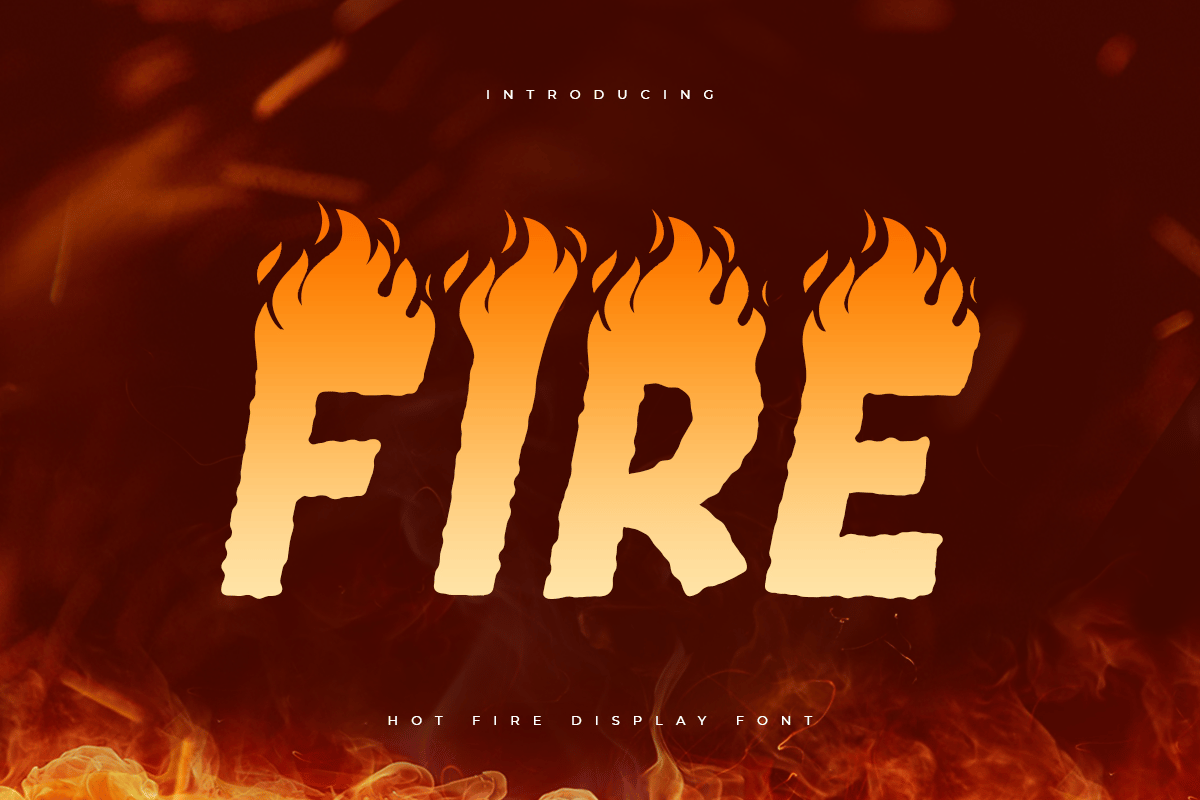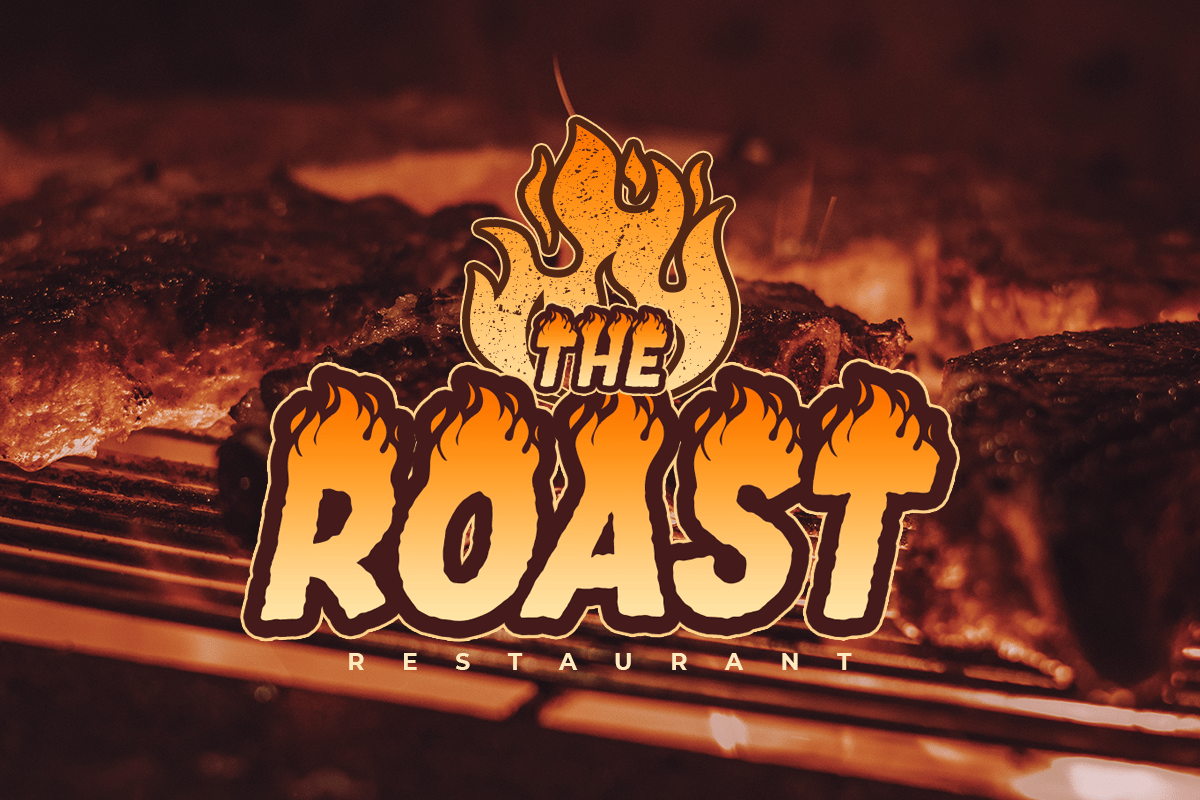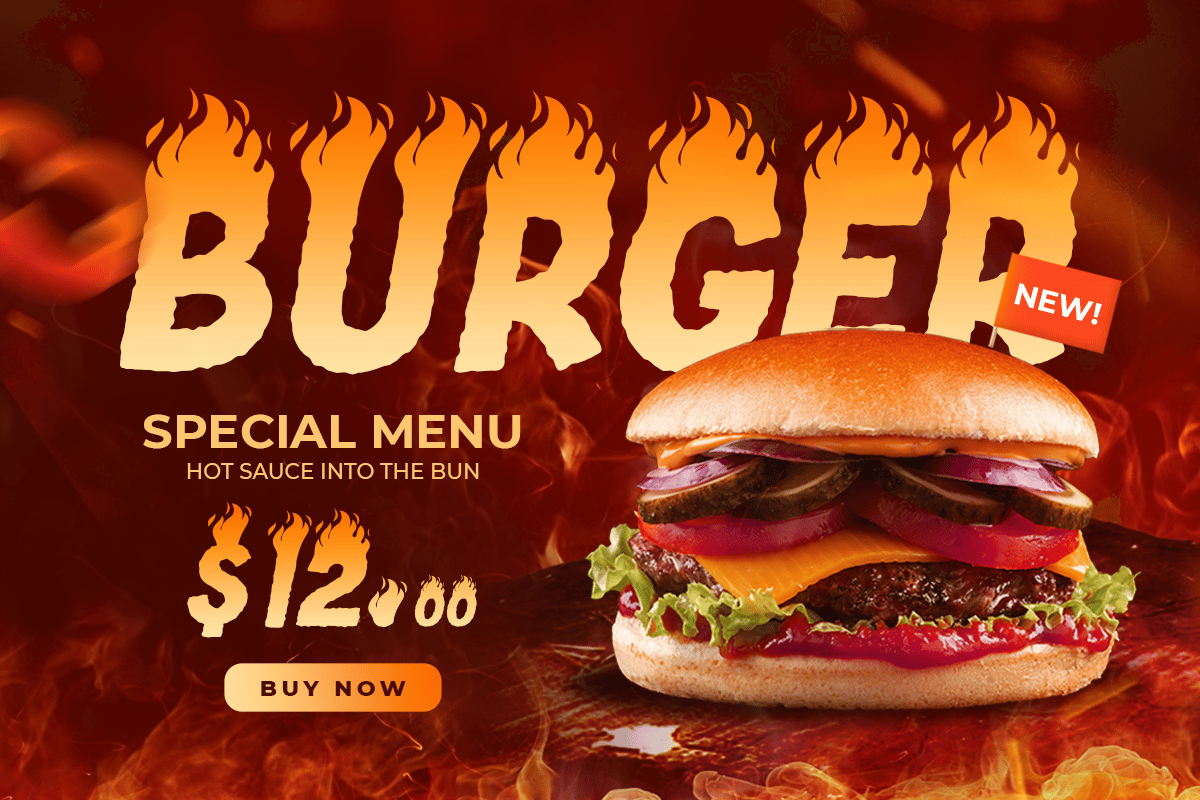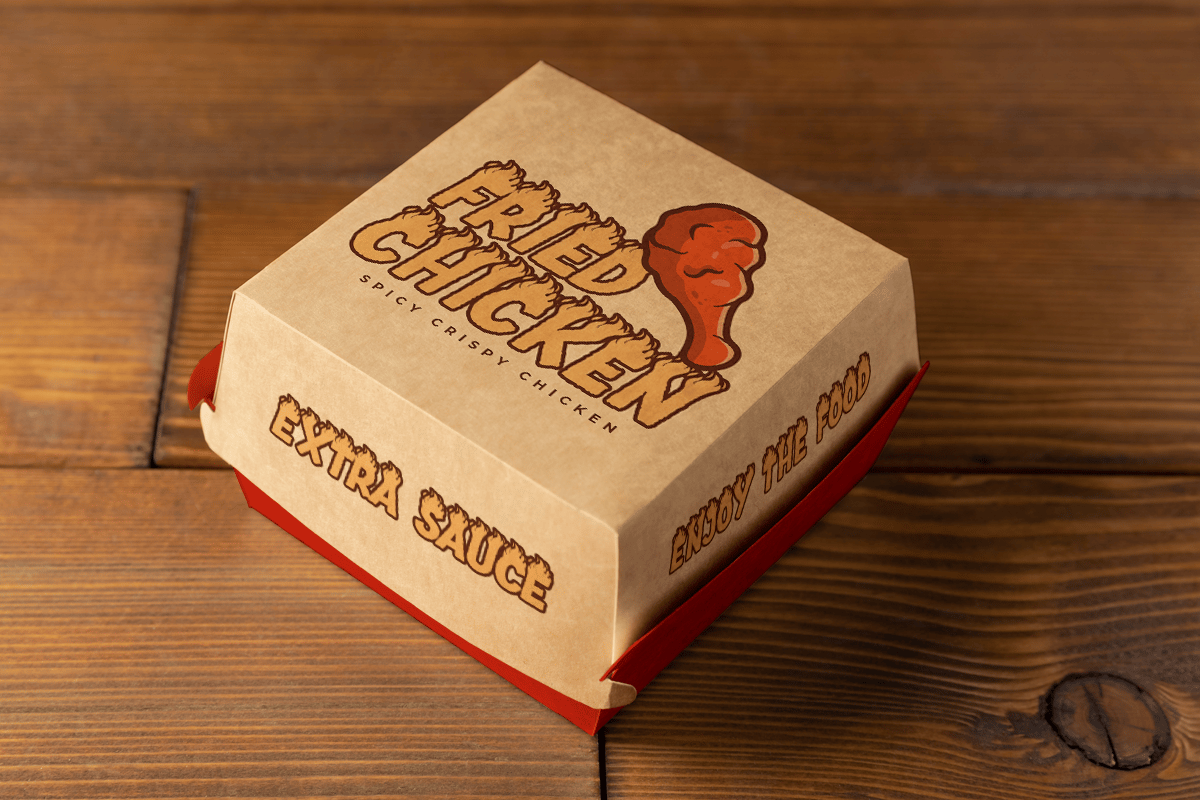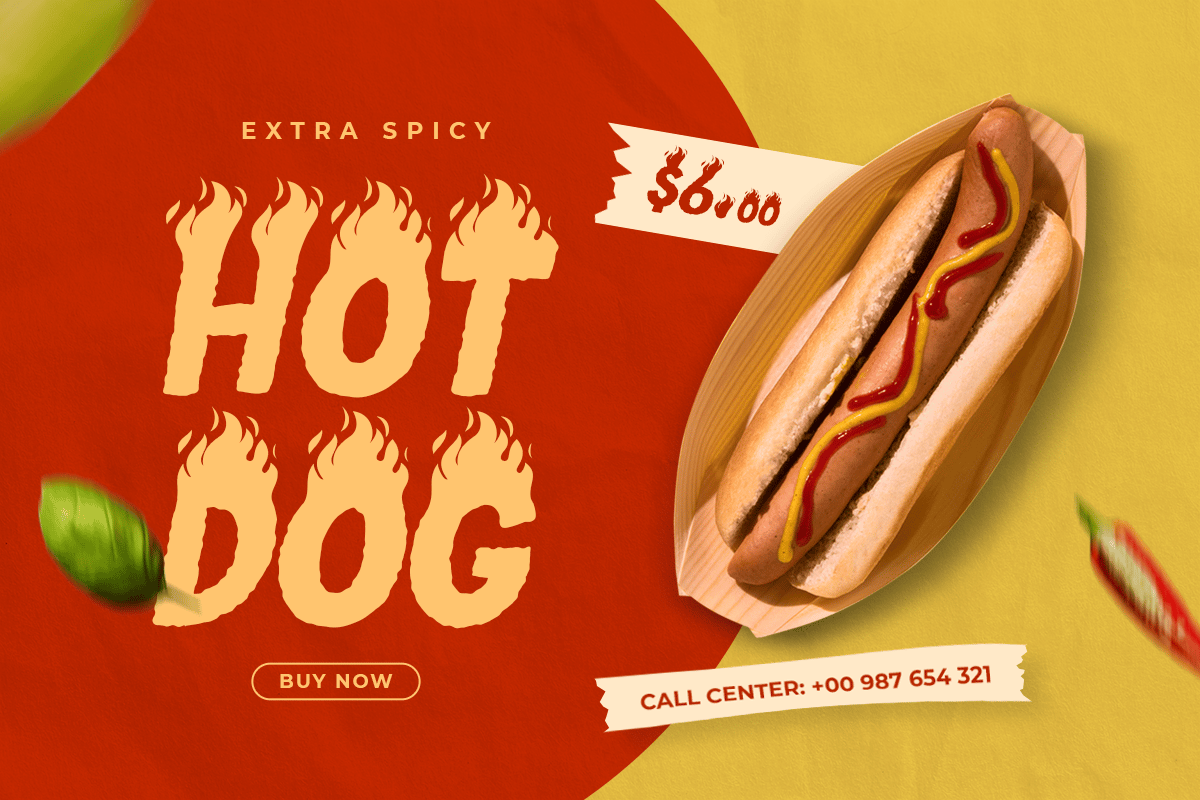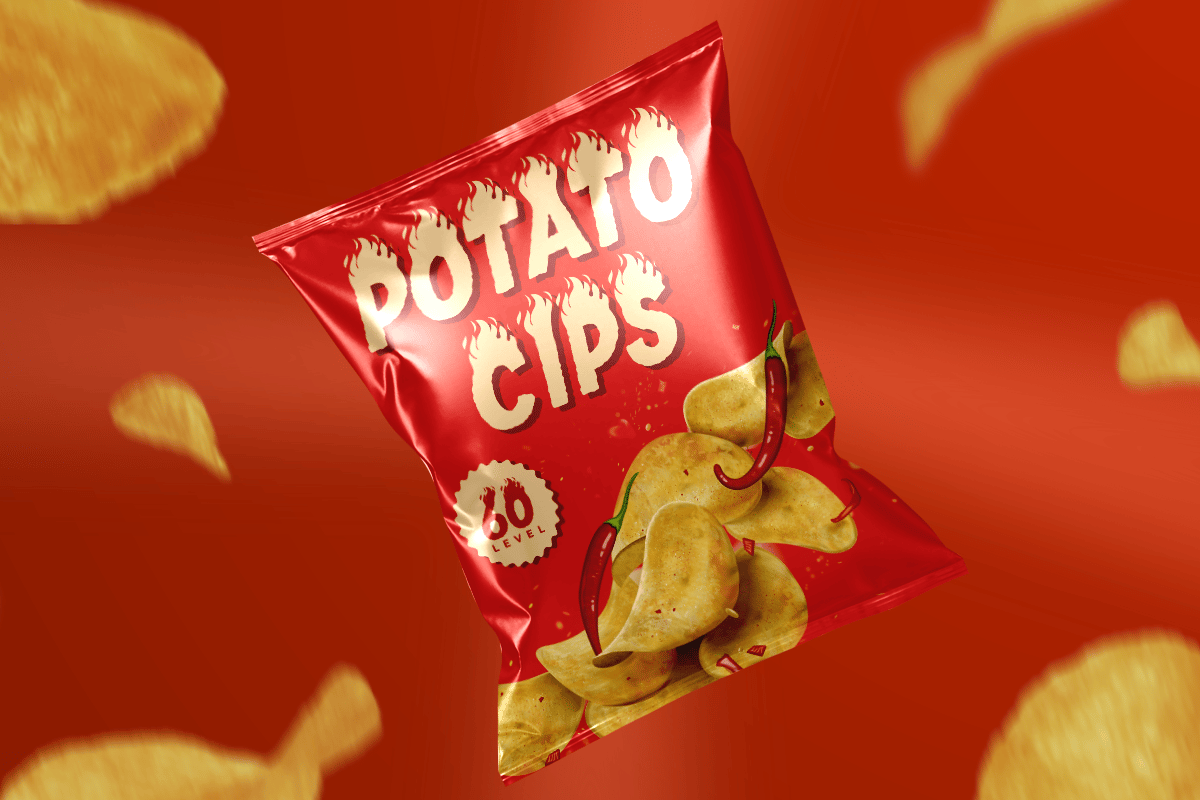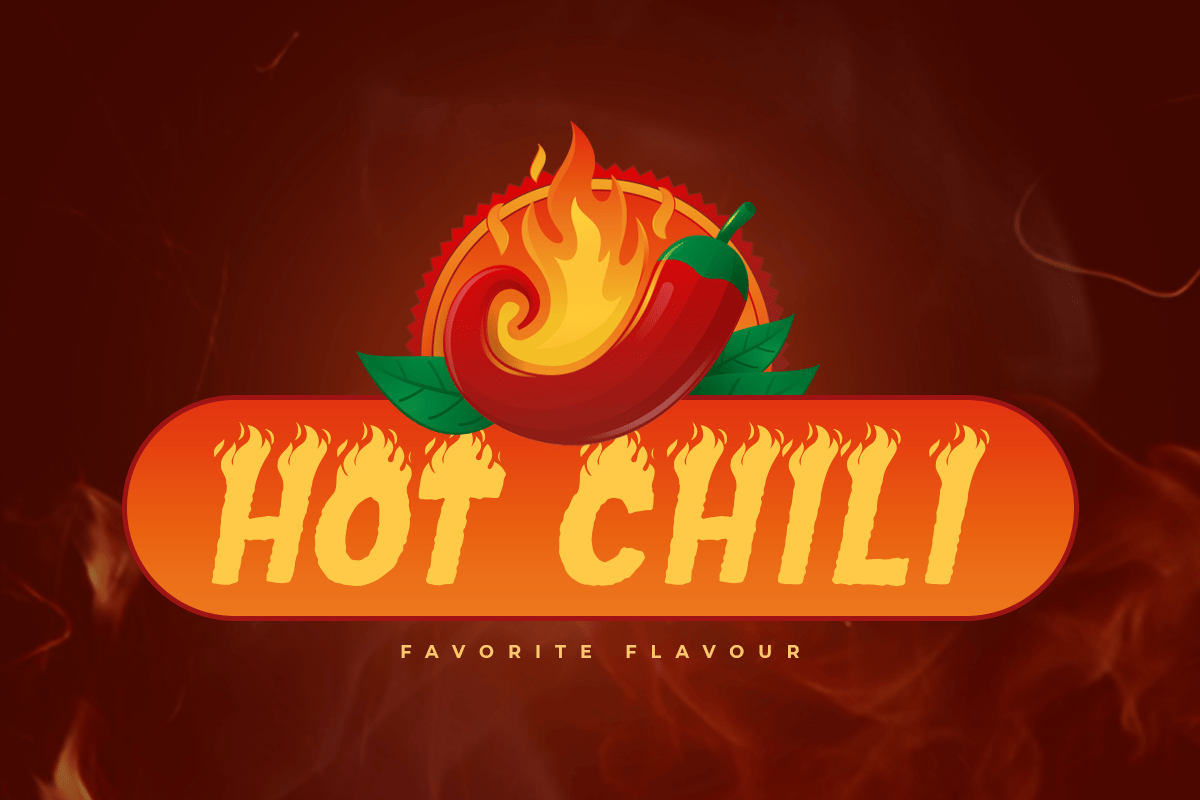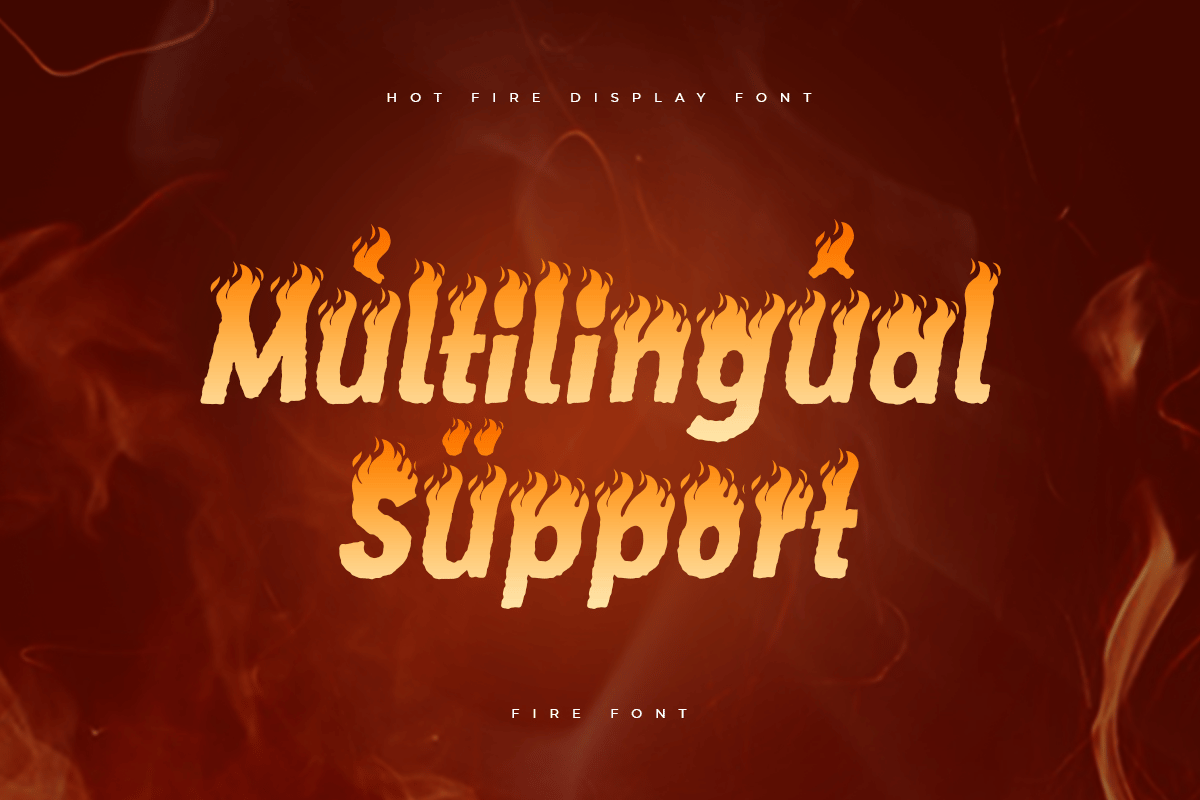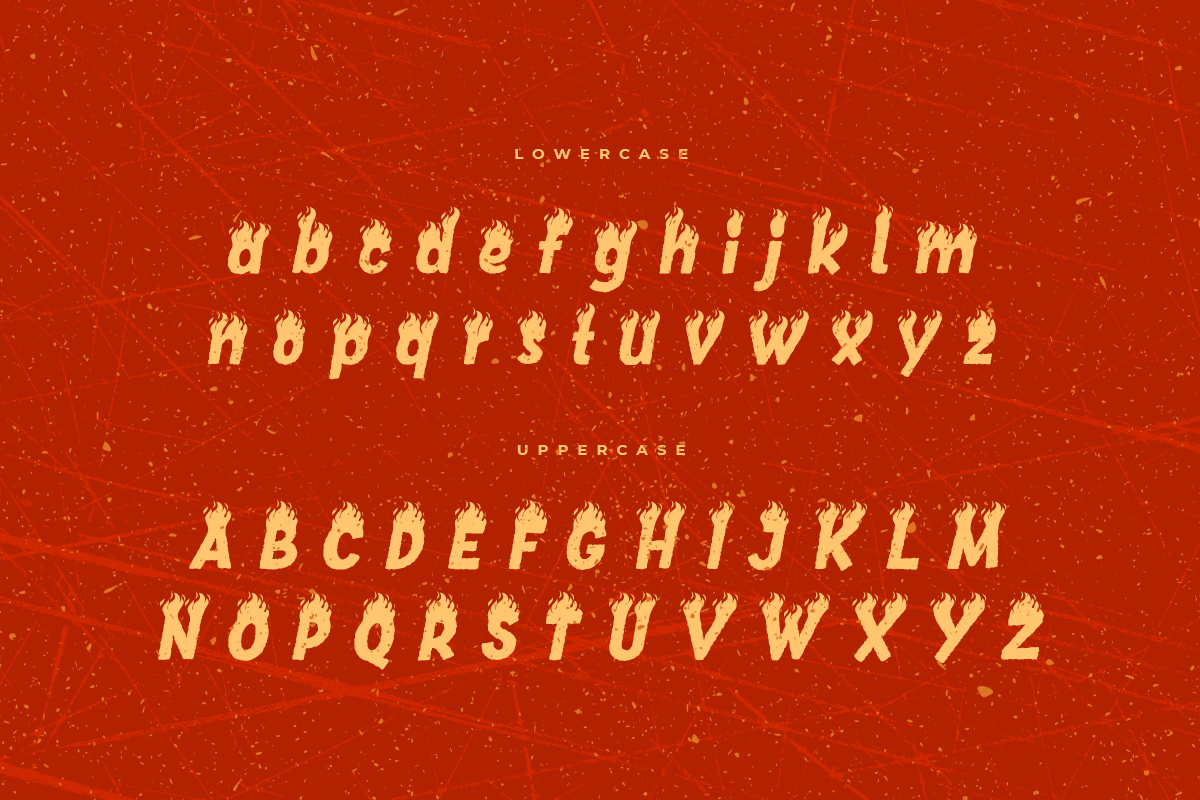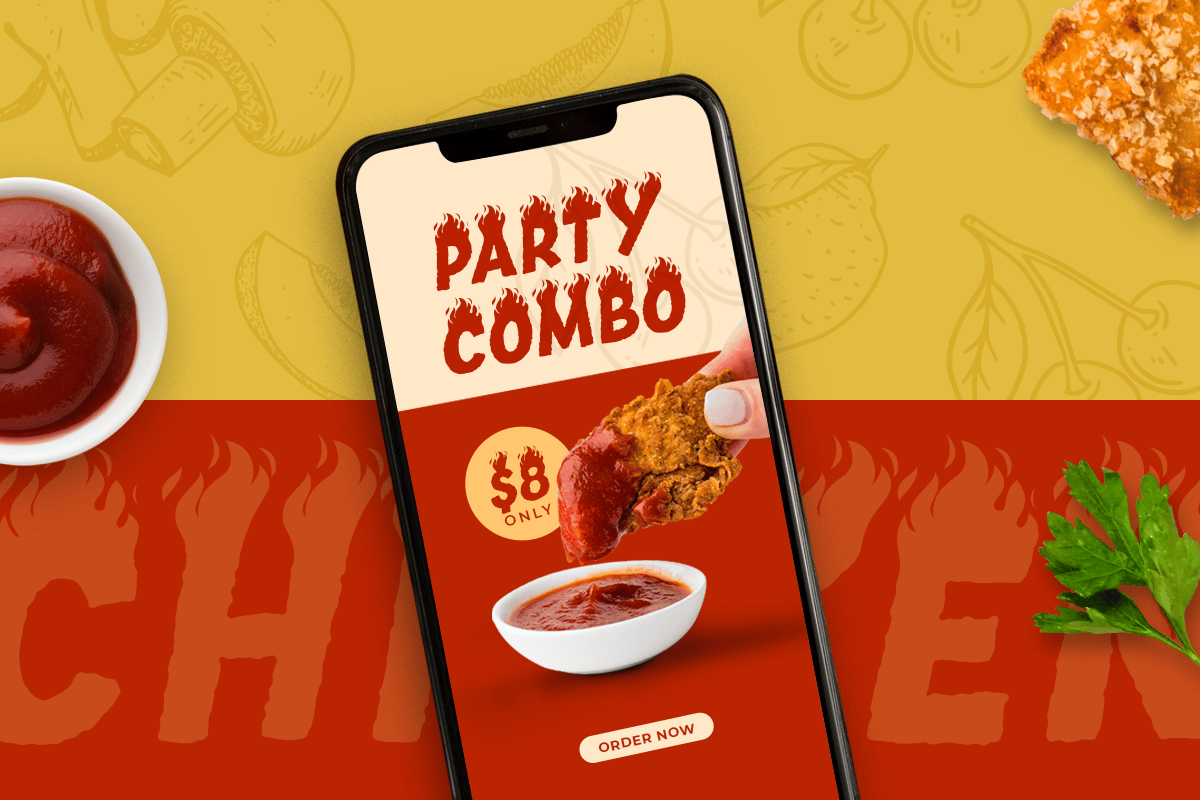
Fire Ball – Hot Fire Display Font
Fire Ball is Hot Fire Display Font that have Unique, Display and Burn effect are ready for Hot-themed event. You can combine to get any variations and unique shapes easily just in seconds with the character of them. It is a Display font with great shape that perfect for any branding projects, logo, wedding designs, social media posts, advertisements, product packaging, product designs, label, and any projects, it makes with a high level of legibility.
Fire Ball Hot Display Font ready with:
- Any options to get creative variations
- Preview as a inspirations that you can do with this font
- Ready with Lowercase and Uppercase characters